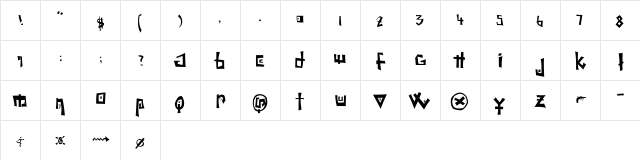
Riot Regular
Design Context for Riot Typeface
Riot is a composed and adaptable typeface that performs quietly and consistently across a wide range of design contexts.